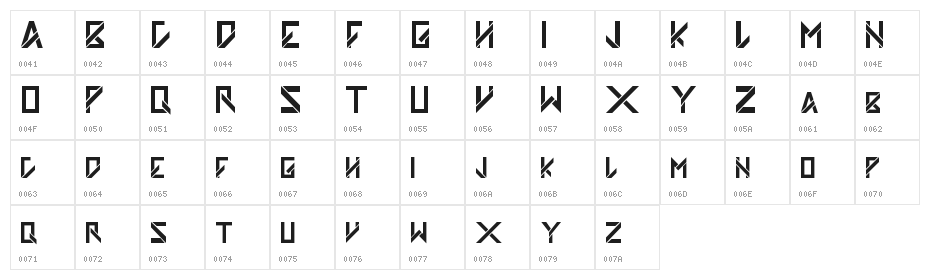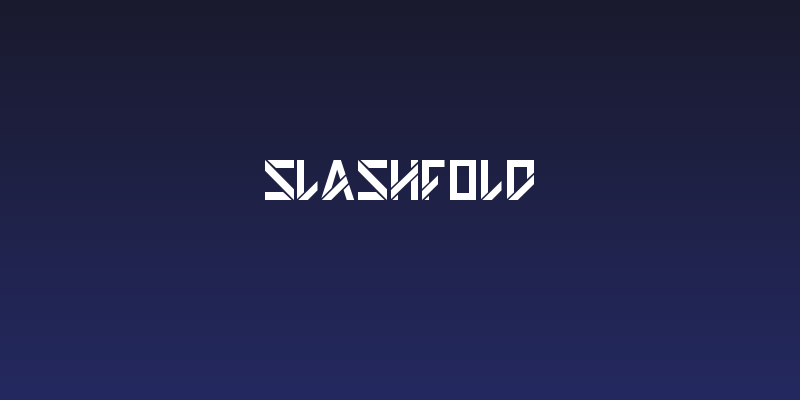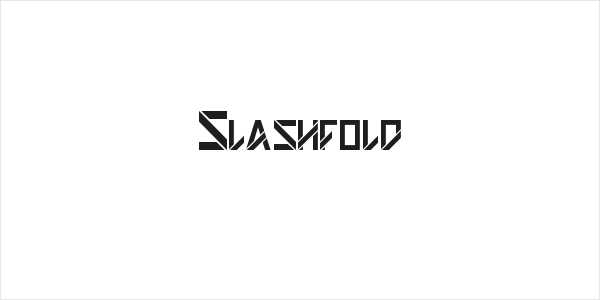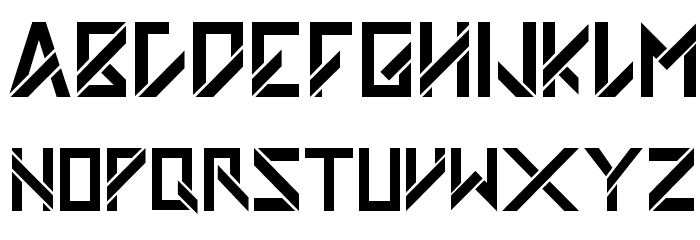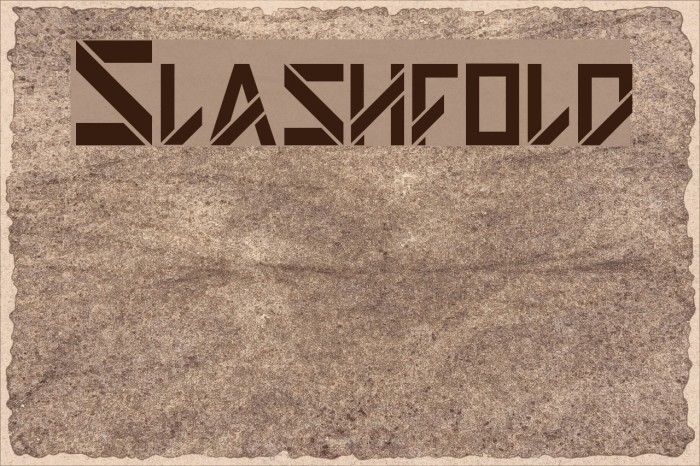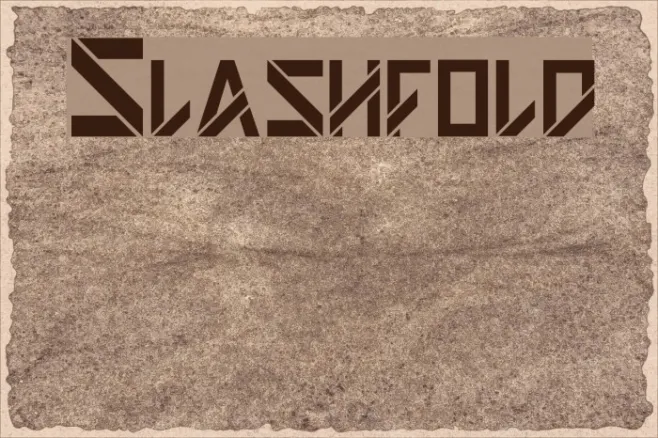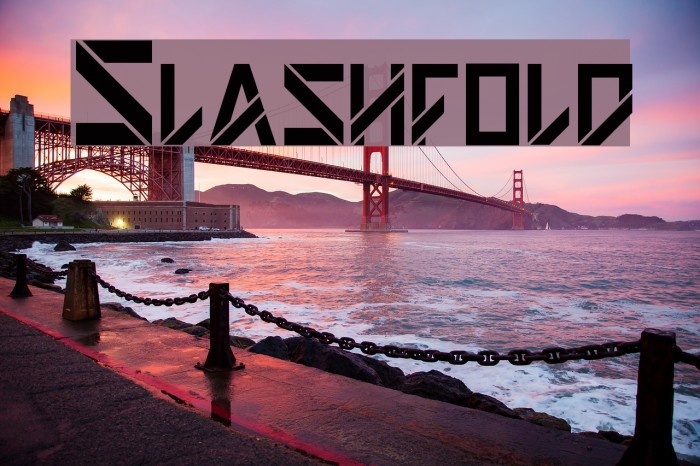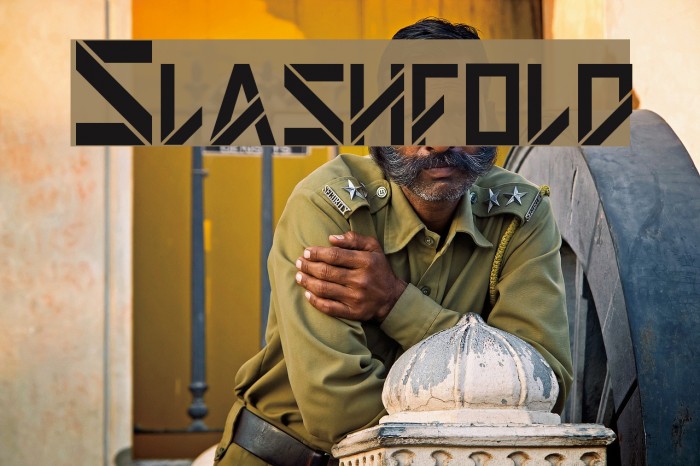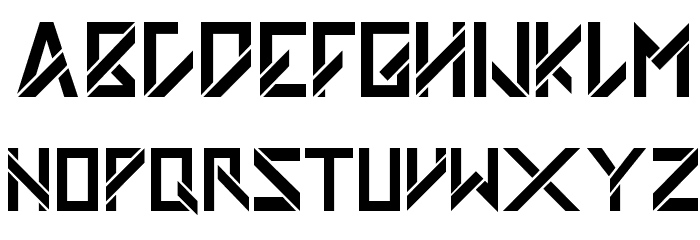
Slashfold Font
Slashfold Description
This font features a bold, geometric design with sharp angles and a futuristic aesthetic. Each character is constructed with a series of diagonal cuts and straight lines, creating a dynamic and edgy appearance. The uppercase letters are particularly striking, with a consistent use of slashes that give the font a sense of movement and energy. The overall look is modern and avant-garde, making it suitable for projects that require a strong visual impact. The font's unique style is both eye-catching and memorable, ideal for branding, posters, and digital media.
| Proposed Projects | Ideal for branding, posters, digital media, and any project requiring a strong visual impact. |